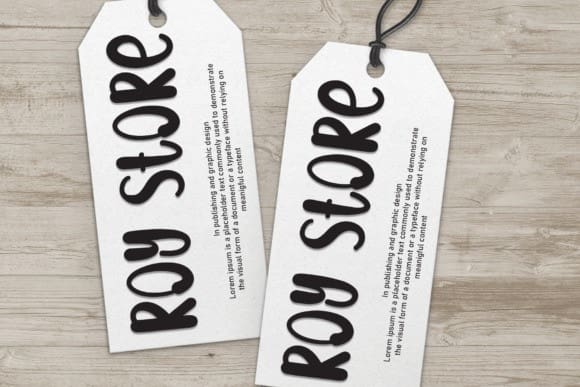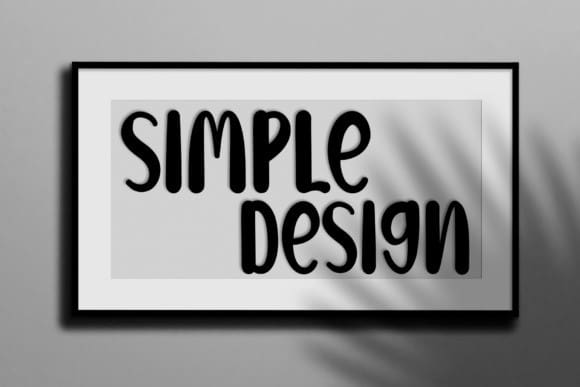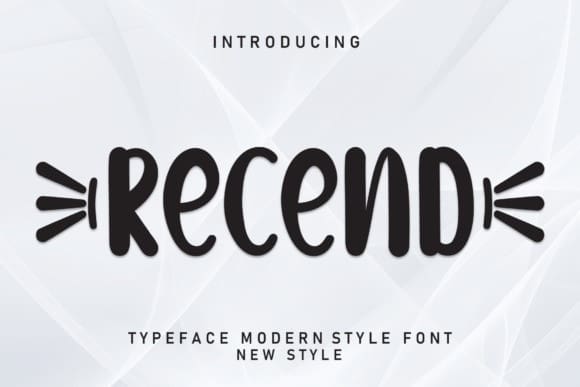
Recend Playful Font
Recend Playful Font is a sweet and friendly handwritten font. Fresh and casual, this font is ideal for writing wedding invitations, cards, or any other design that might need a lovely touch.